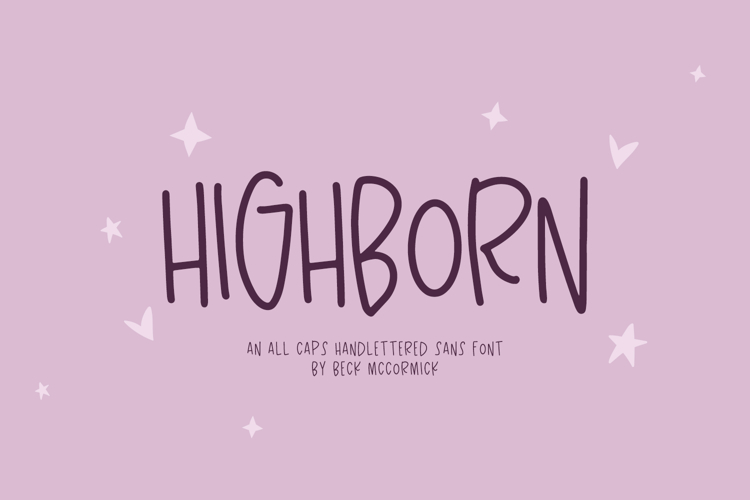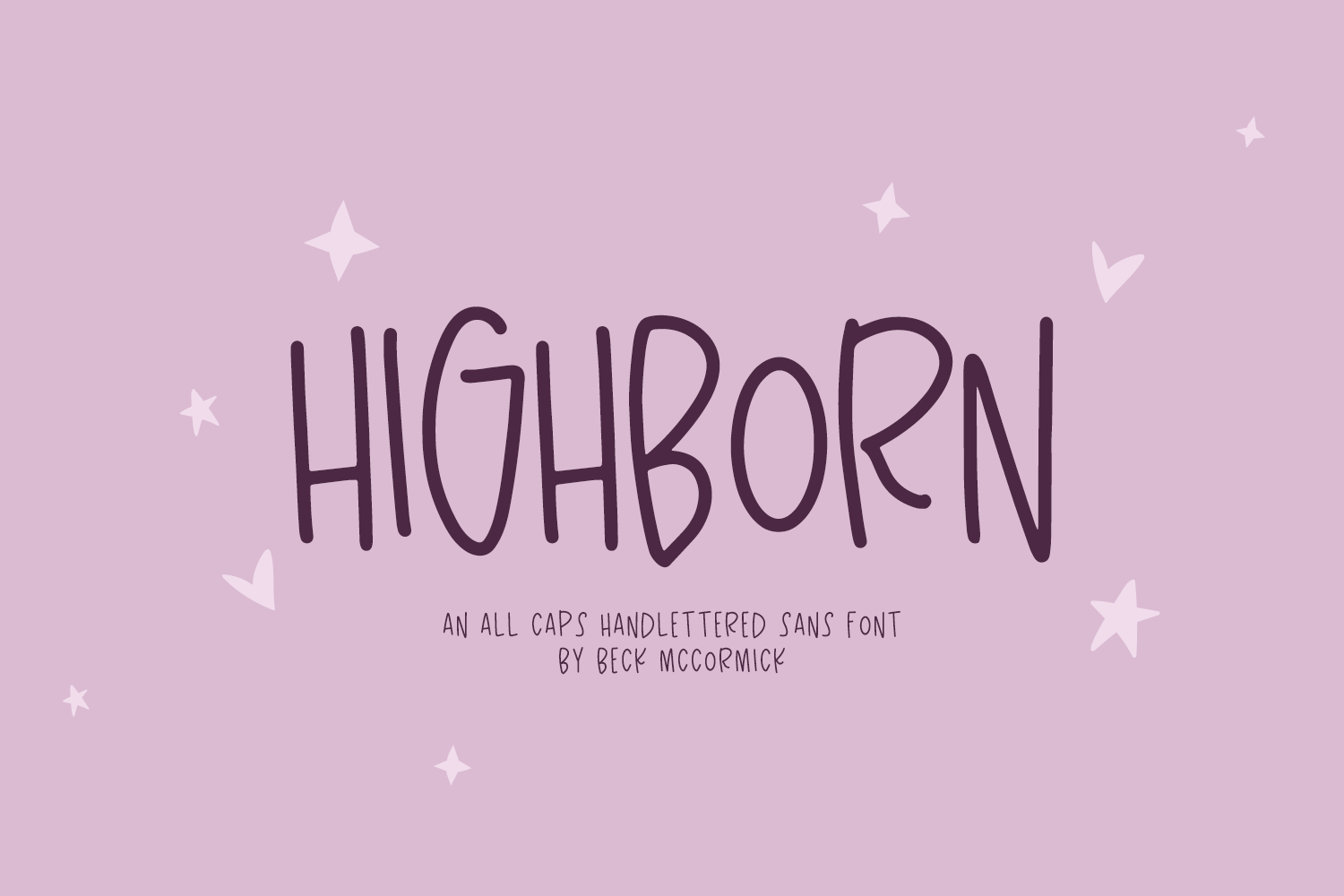
Say hello to Highborn, an all-caps sans font. Highborn is cute and quirky.
- full upper + lowercase characters - caps characters are programmed into lowercase spots for your convenience!